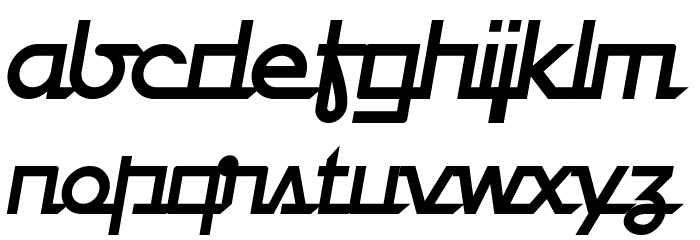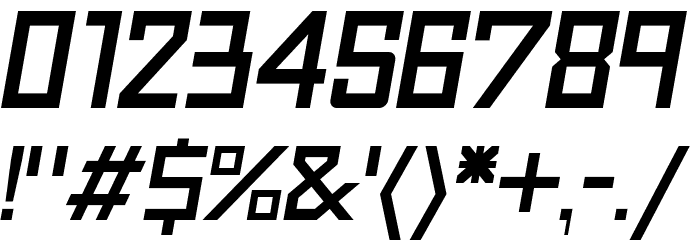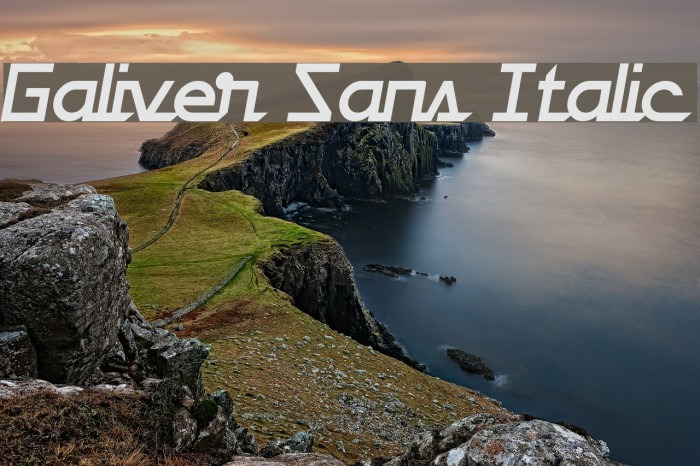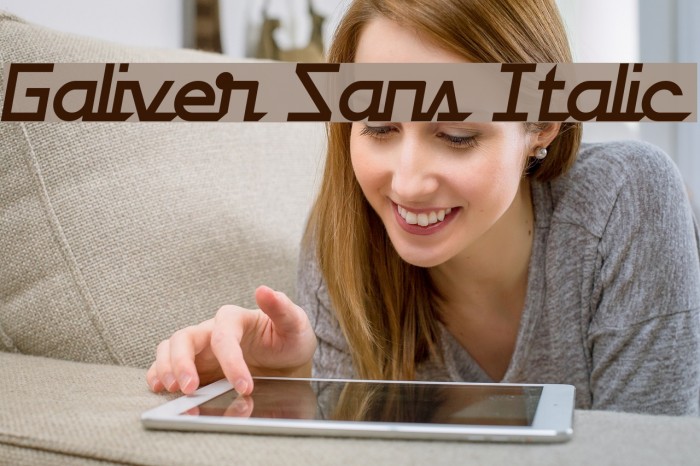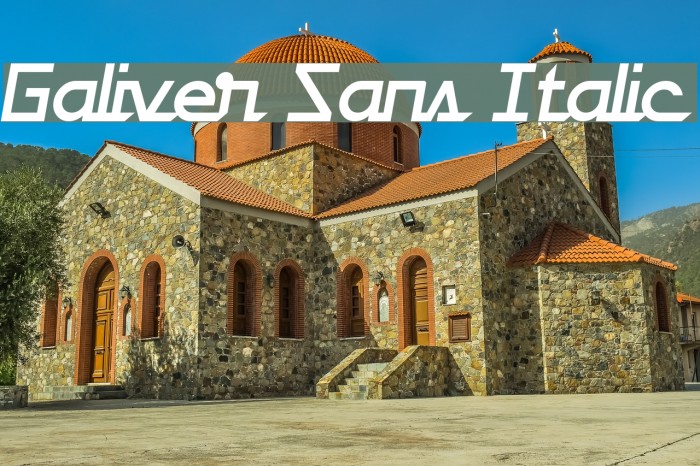
Galiver Sans Italic Font
This font features a dynamic and angular design with a distinct italic slant, giving it a sense of motion and modernity. The characters are constructed with sharp edges and clean lines, creating a futuristic and sleek appearance. The uppercase letters are bold and commanding, while the lowercase letters maintain a consistent style with a slightly more compact form. Numbers are clear and legible, matching the overall aesthetic. Special characters are designed with the same angular precision, ensuring consistency across all glyphs. The font's unique style makes it suitable for projects that require a modern and edgy look.
A dynamic, angular italic font with a modern and sleek design.
- Proposed Projects: Ideal for branding, technology-related designs, sports team logos, and modern advertising campaigns.